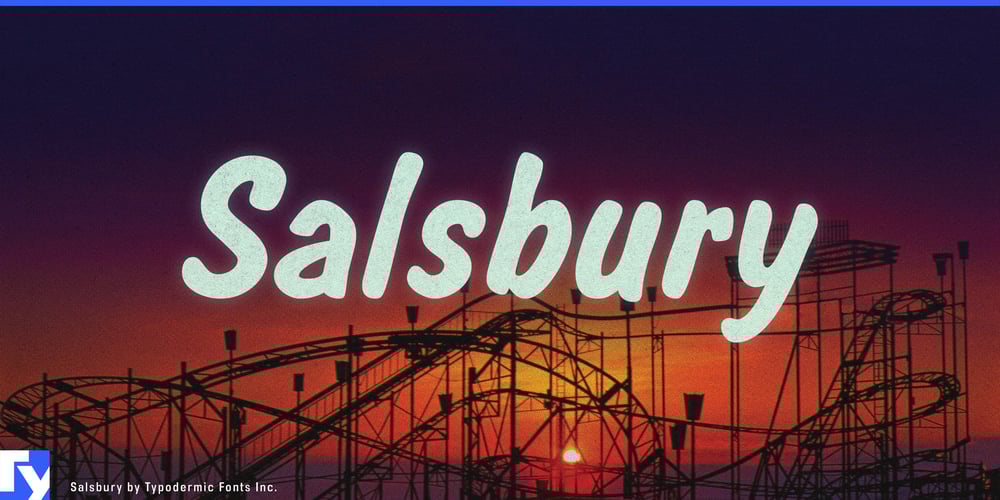
Salsbury Font Family was designed by Ray Larabie and published by Typodermic. Salsbury contains 1 styles and family package options. Roll up, roll up! Feast your eyes on Salsbury, the typeface that brings the vibrant spirit of vintage carnivals and county fairs roaring back to life. This typeface will whisk you away to an era of cotton candy dreams and merry-go-round melodies.Crafted with the loving attention of a master sign painter, Salsbury eschews digital perfection in favor of handmade charm. Each character bears the subtle imperfections of a hand-cut screen print, infusing your designs with an authenticity that no computer-generated typeface can match. It’s as if each letter has been lovingly carved from the memories of summers past, ready to tell new stories in your hands. Salsbury doesn’t just catch the eye—it captivates the imagination. Its bold lines and vibrant personality demand attention, making it the perfect choice for designers looking to create show-stopping headlines or unforgettable branding. From event posters that pop to packaging that transports consumers to a world of wonder, Salsbury turns every project into a main attraction.But the real magic of Salsbury lies in its versatility. A treasure trove of glyphs and alternate characters allows you to customize your designs, ensuring that no two projects ever look quite the same. It’s like having a typographic carnival barker at your disposal, ready to adapt its spiel to whatever audience you’re trying to reach. Despite its distinctly nostalgic American flavor, Salsbury speaks to audiences across the globe. Supporting a wide range of Latin-based European writing systems, it ensures your message maintains its charm whether you’re advertising a Ferris wheel in Fresno or a festive fair in Frankfurt.Choose Salsbury when your design needs to sing with the joy of simpler times. Its unique blend of playfulness and craftsmanship makes it ideal for projects that aim to evoke warmth, excitement, and a touch of whimsy. Whether you’re rebranding a classic amusement park, designing invitations for a retro-themed event, or creating packaging for artisanal treats, Salsbury provides the typographic flair to bring your vision to life.In a world of sleek, minimalist design, Salsbury offers a refreshing alternative—a chance to indulge in the exuberant, the colorful, the unabashedly fun. Step right up and let Salsbury be the star of your next design show. Your audience won’t just read your words—they’ll experience them, carried away on a typographic adventure that awakens the wide-eyed wonder in us all.